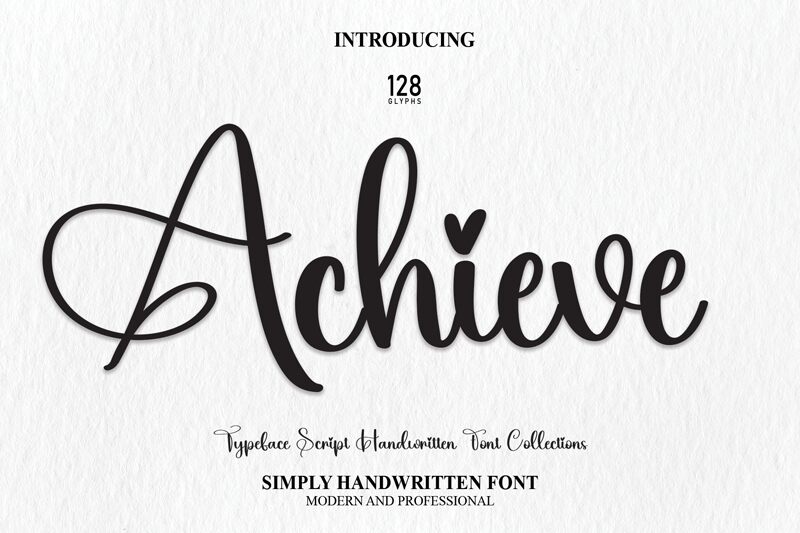
Achieve
Achieve, a captivating calligraphy font by Scratchones, emanates elegance and romance.
Its intricate strokes and graceful curves make it perfect for wedding invitations, love letters, and heartfelt messages. The font's delicate yet confident style adds a touch of sophistication to any project. With Achieve, create stunning Valentine's Day cards that evoke heartfelt emotions or design exquisite packaging for high-end beauty products. This versatile font captivates with its timeless charm and is ideal for bringing warmth and intimacy to any creative endeavor.
Embrace the allure of Achieve for your next sentimental masterpiece.
The latest style letters are perfect for wall displays, wedding invitations, social media post logos, advertisements, product packaging, product designs, labels, photography, watermarks, invitations, stationery, and any project that requires taste handwriting.
Its intricate strokes and graceful curves make it perfect for wedding invitations, love letters, and heartfelt messages. The font's delicate yet confident style adds a touch of sophistication to any project. With Achieve, create stunning Valentine's Day cards that evoke heartfelt emotions or design exquisite packaging for high-end beauty products. This versatile font captivates with its timeless charm and is ideal for bringing warmth and intimacy to any creative endeavor.
Embrace the allure of Achieve for your next sentimental masterpiece.
The latest style letters are perfect for wall displays, wedding invitations, social media post logos, advertisements, product packaging, product designs, labels, photography, watermarks, invitations, stationery, and any project that requires taste handwriting.